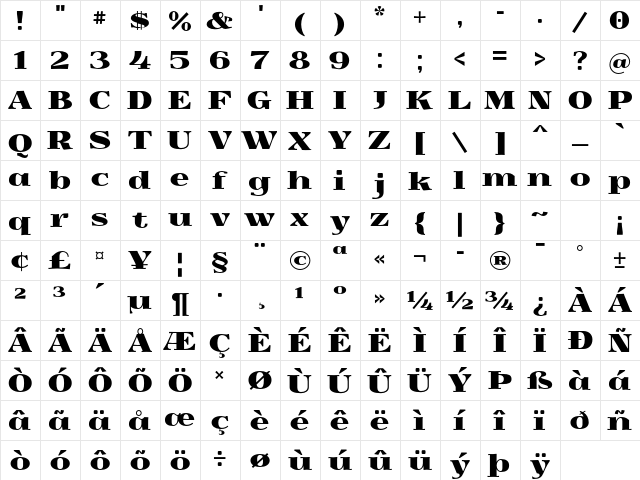
Yokawerad Regular Font Preview
Yokawerad Regular
Yokawerad Regular Font Details
| Foundry | gluk |
| Designer | gluk |
Design Context for Yokawerad Typeface
Yokawerad is a composed and adaptable typeface that performs quietly and consistently across a wide range of design contexts.